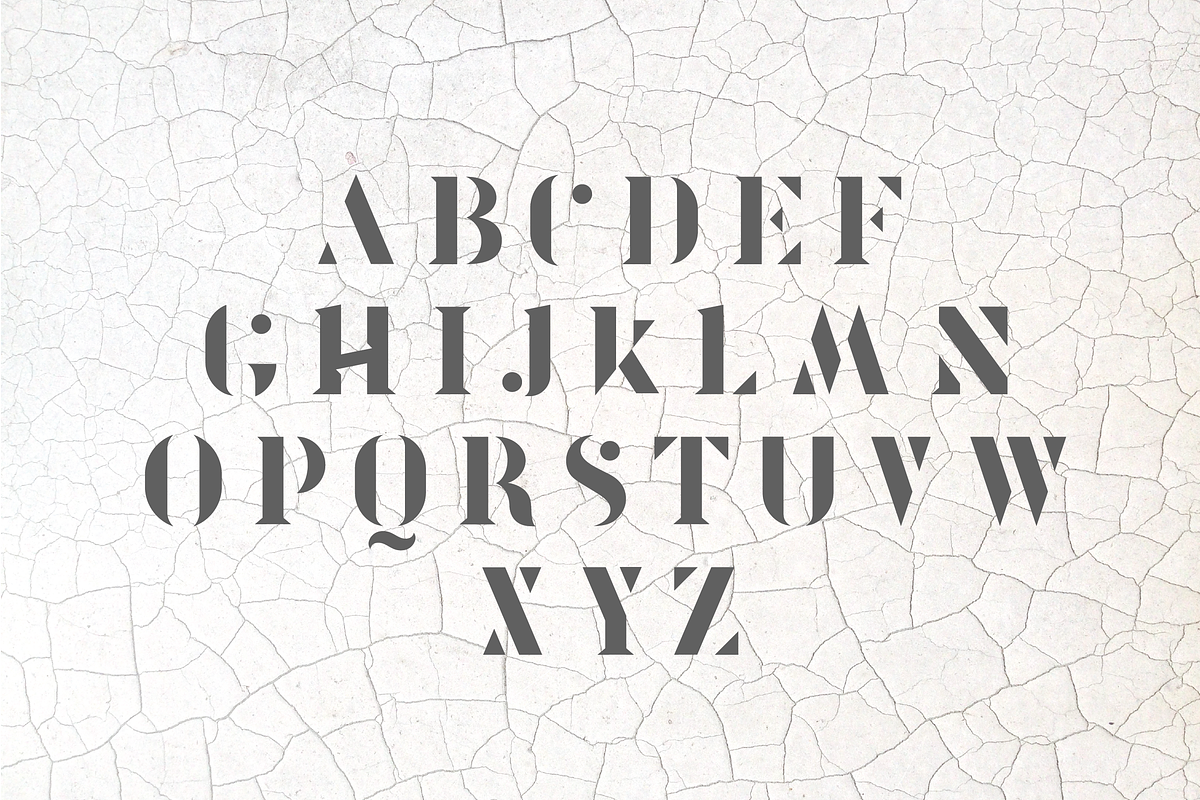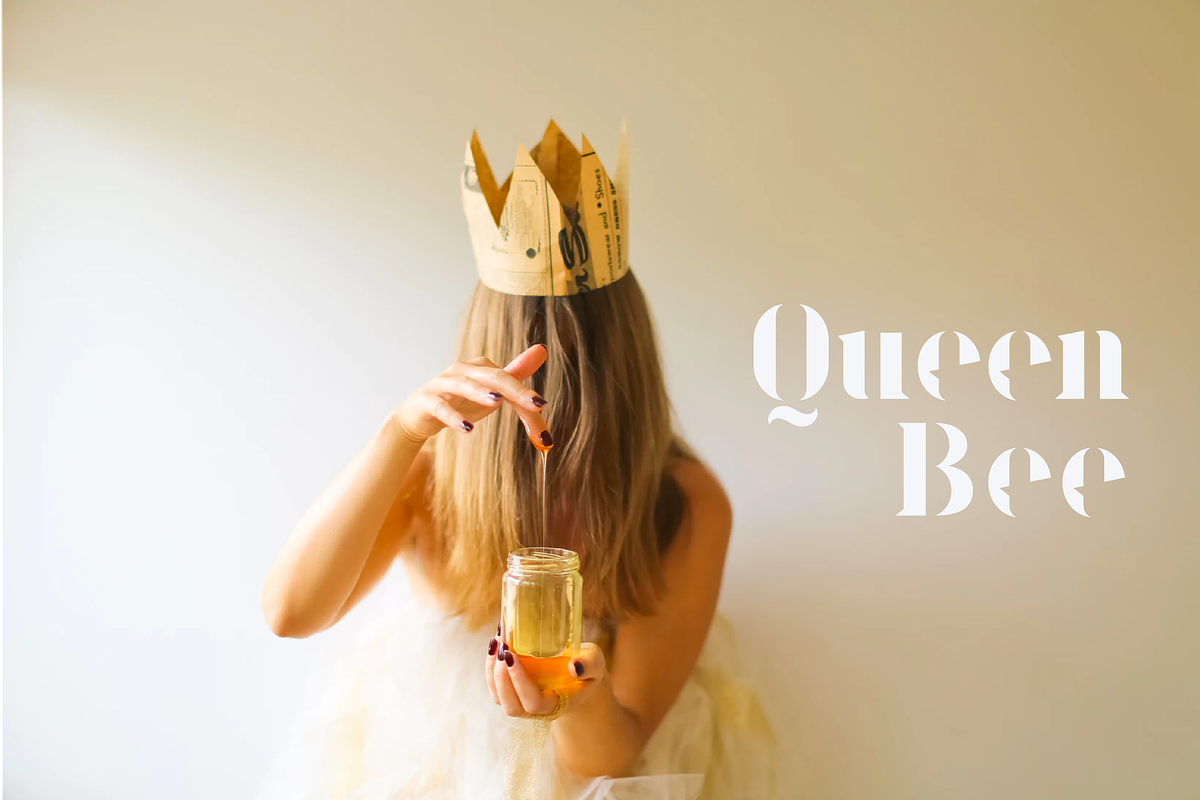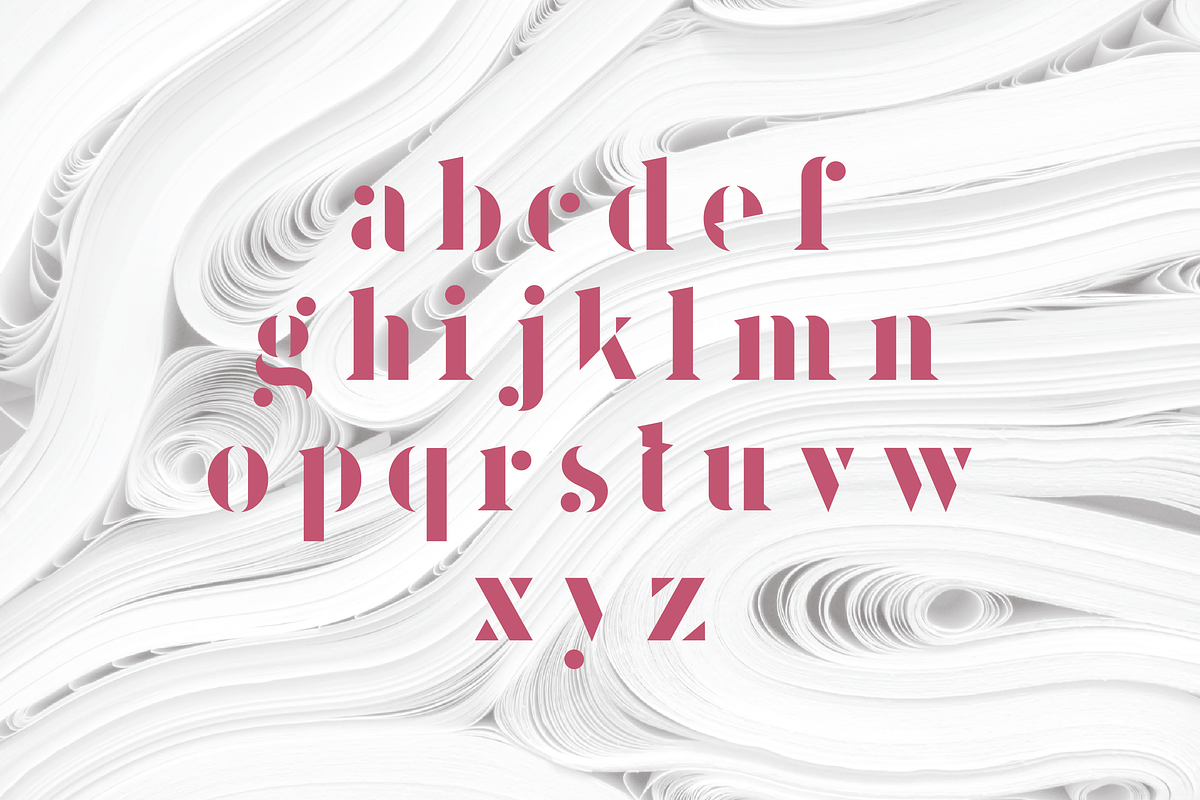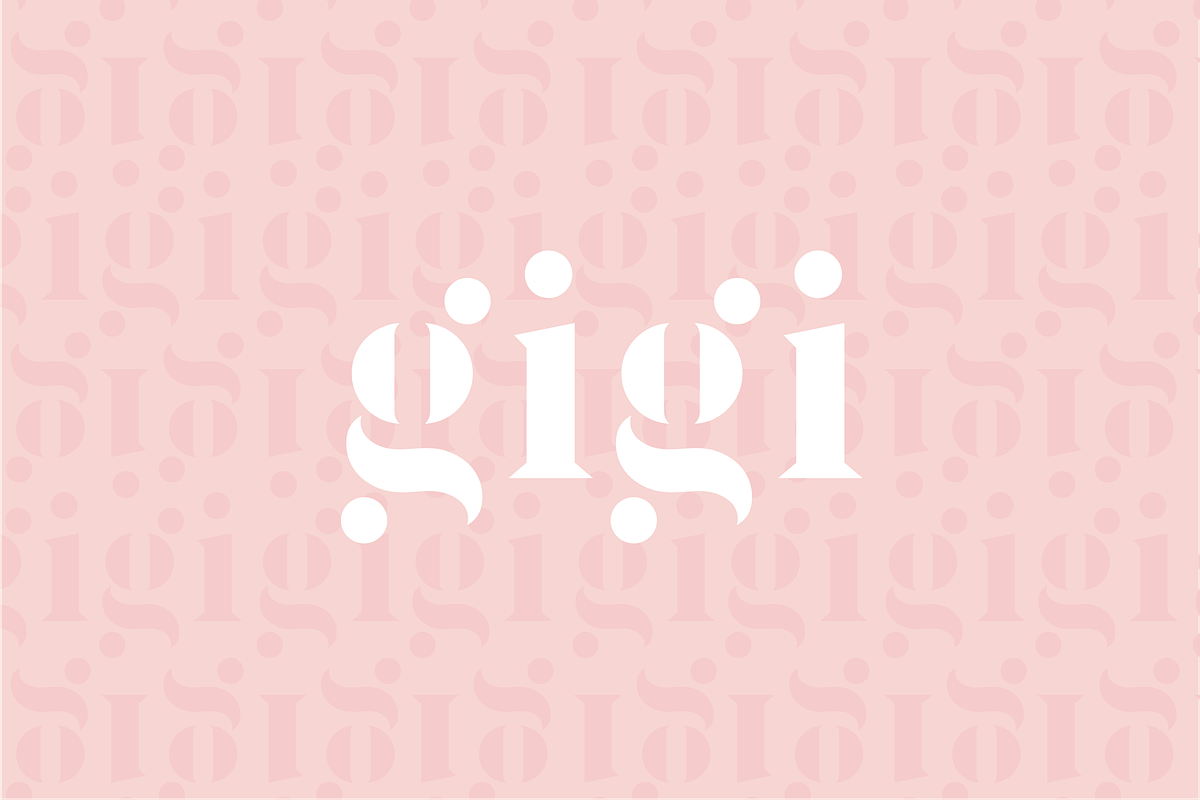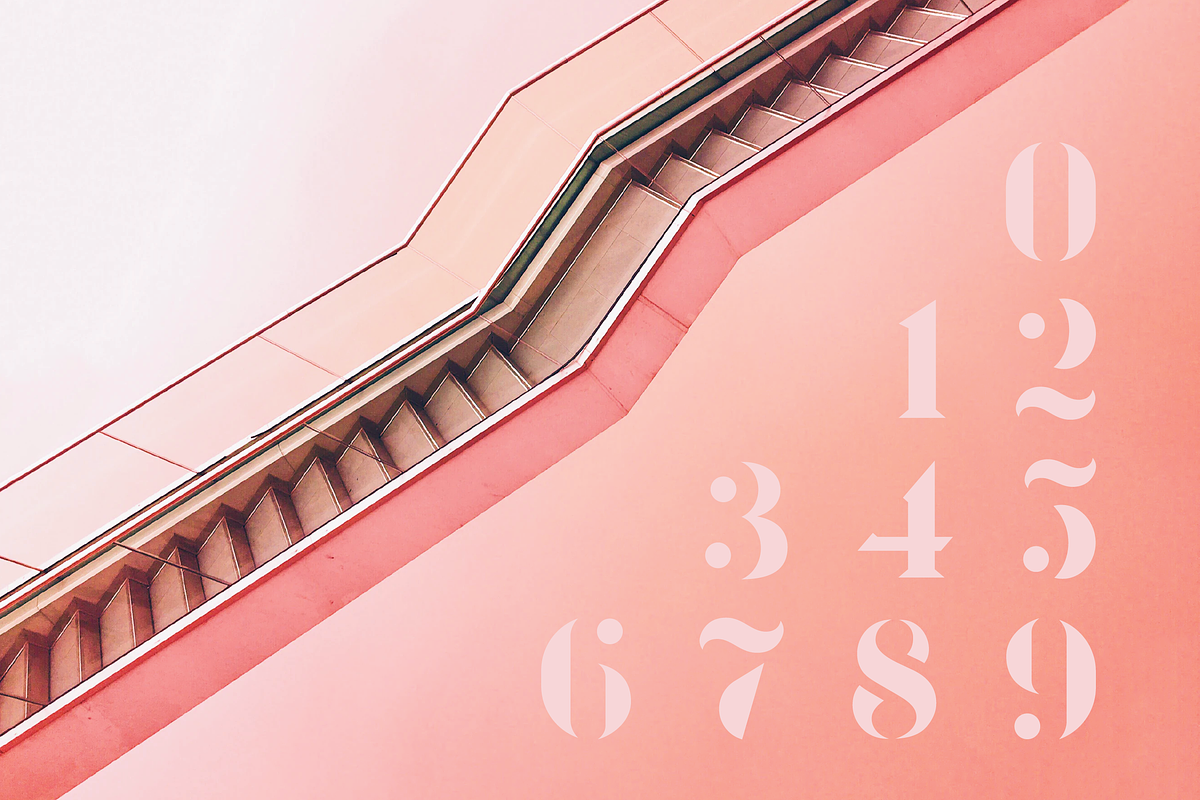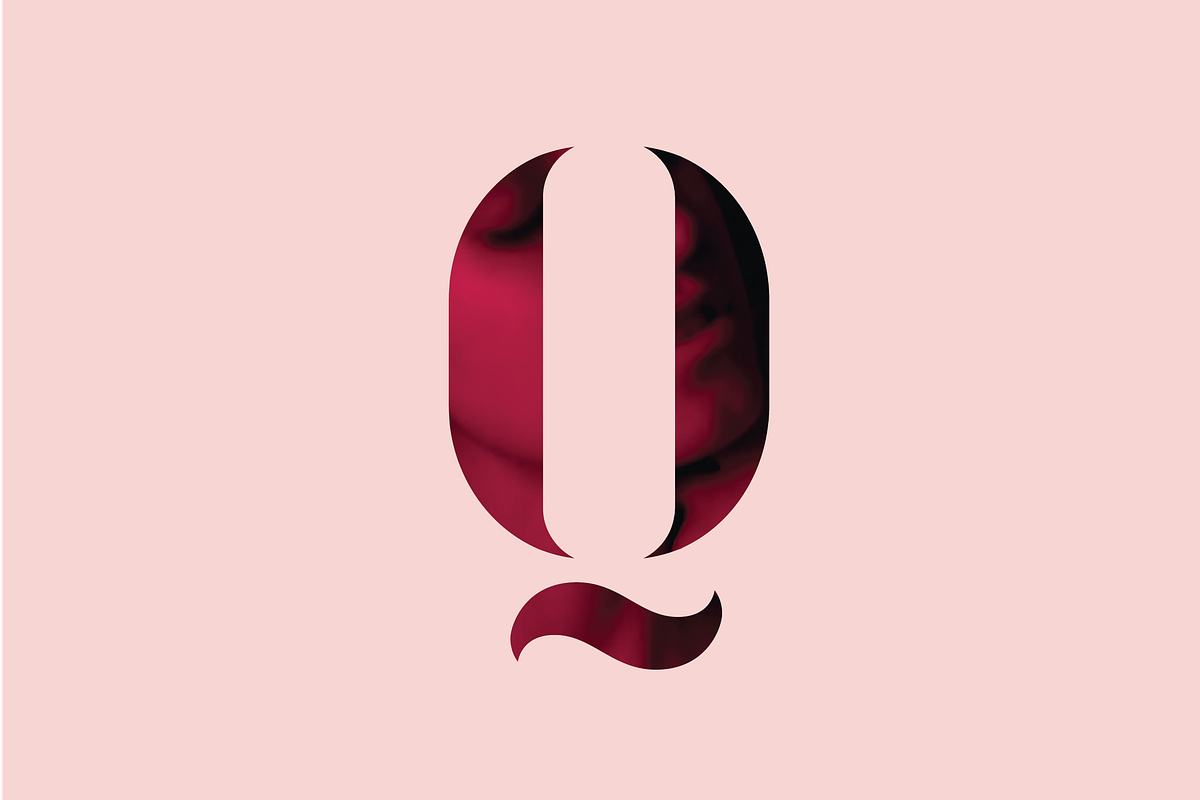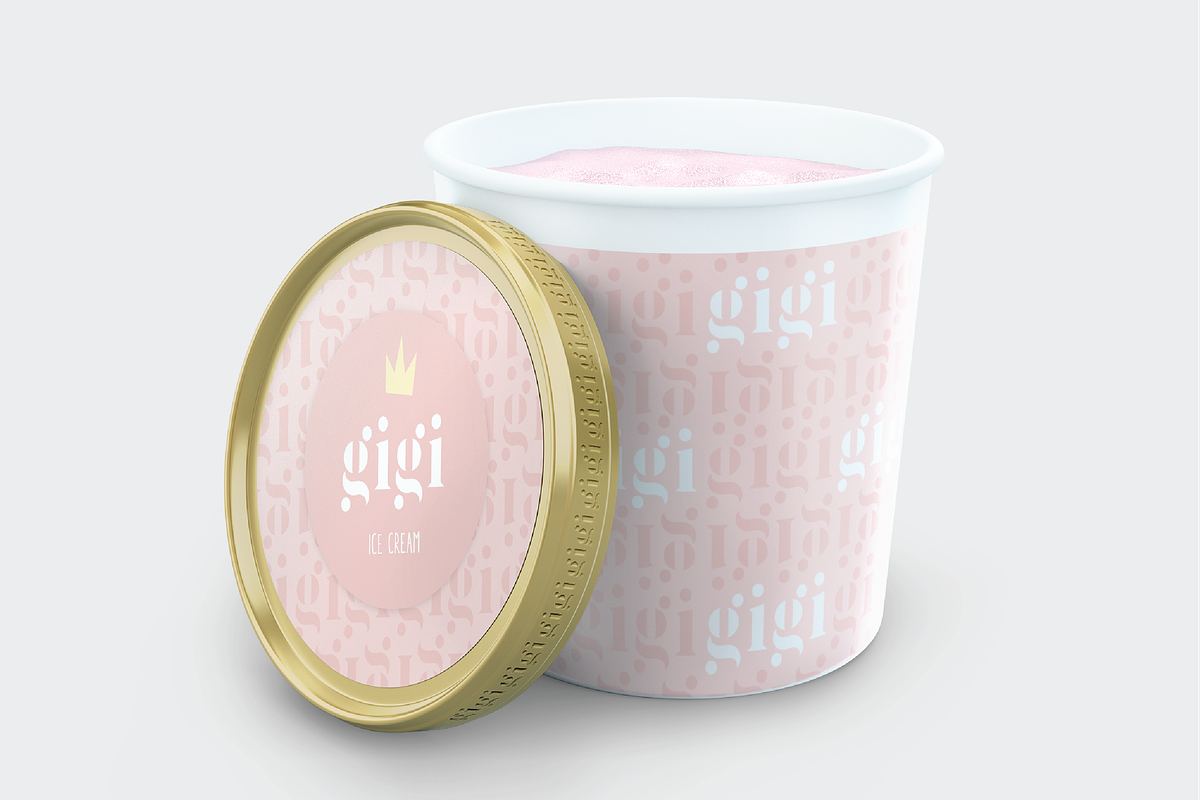
Kingly Font
A font fit for a king... kinda ¯(ツ)/¯
Edgy, modern and full of personality. Try it on your next logo!
Kingly Font by Pedro Azedo fits naturally into Branding, posters, packaging, typography.